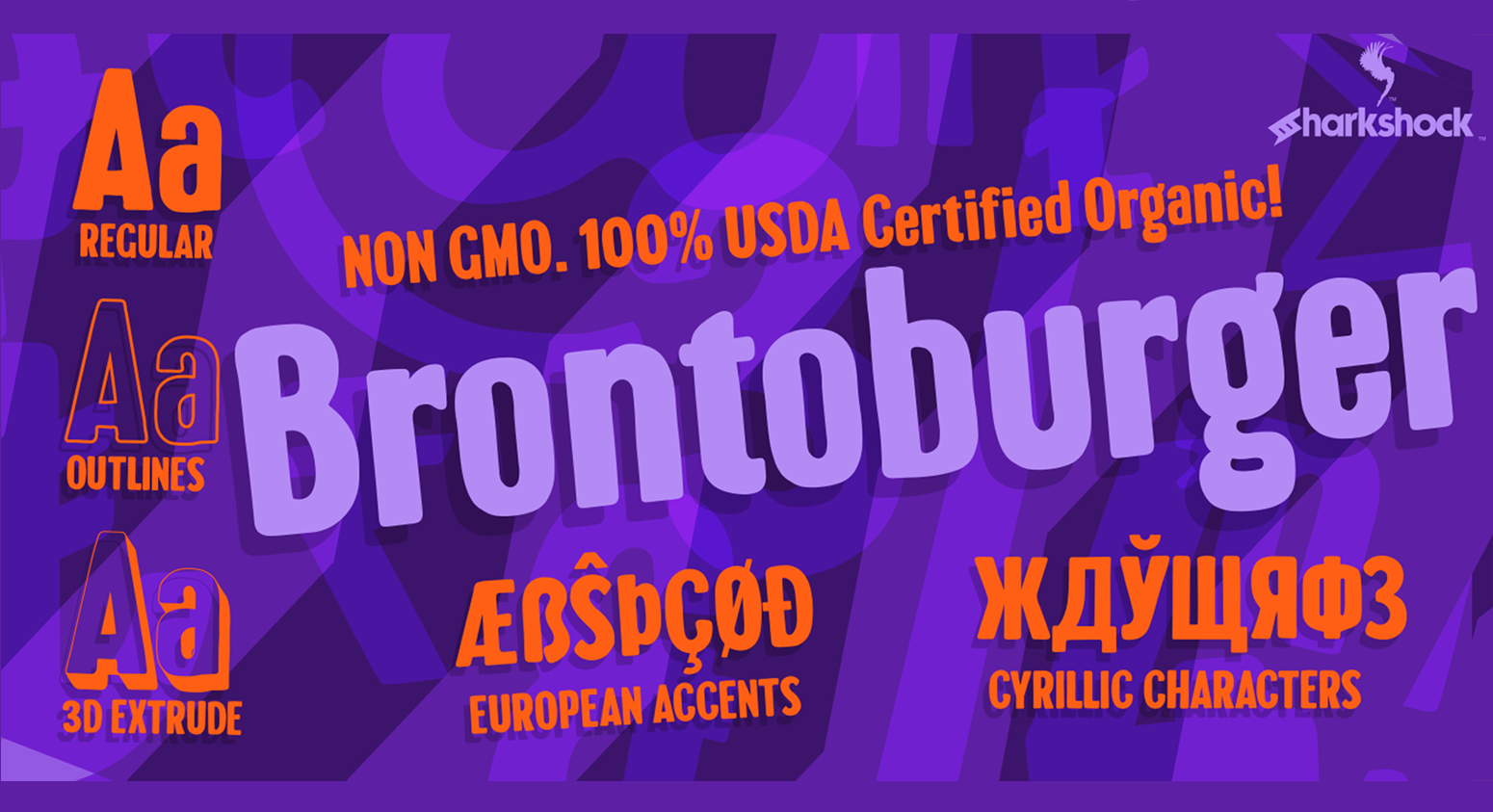
OTF and TTF: Brontoburger (Regular, Outlines, 3D Extrude) by Dennis Ludlow Sharkshock 2021 all rights reserved dennis@sharkshock.net Take a big bite out of Brontoburger! This 3 member family is defined by its loose, laidback appearance but stops short of being too rough around the edges. Its softened corners produce a warm, friendly look suitable for many applications. Brontoburger is playful enough to be featured on toy packaging but suitable for business cards as well. Try the 3D Extrude version for a book cover or poster. This family is equipped with Basic Latin, extended Latin, diacritics, Cyrillic, symbols, punctuation, and kerning. The demo contains basic Latin and limited punctuation only. Please check the glyph map for all supported characters. This font family like our others is free for personal use. The complete versions can be purchased for $40 (personal use only). For commercial licensing options please contact us here to discuss an end user license agreement or visit www.sharkshock.net/license for more info. Commercial use without a license is strictly prohibited and subject to legal remedies. visit www.sharkshock.net for more and take a bite out of BORING design! tags: hand lettered, broad, loose, kids, children, playful, puffy, informal, sans, sans serif, titling, logo, movie, poster, Cyrillic, Russian, European, display, messy, friendly, warm, brush, stroke, marker, cartoon, fun |